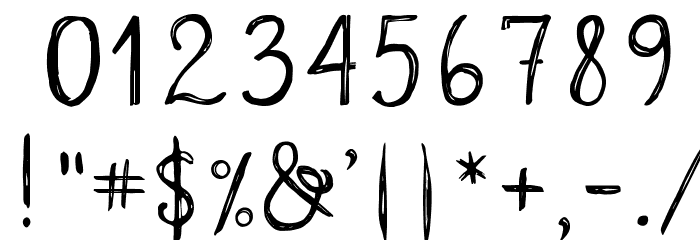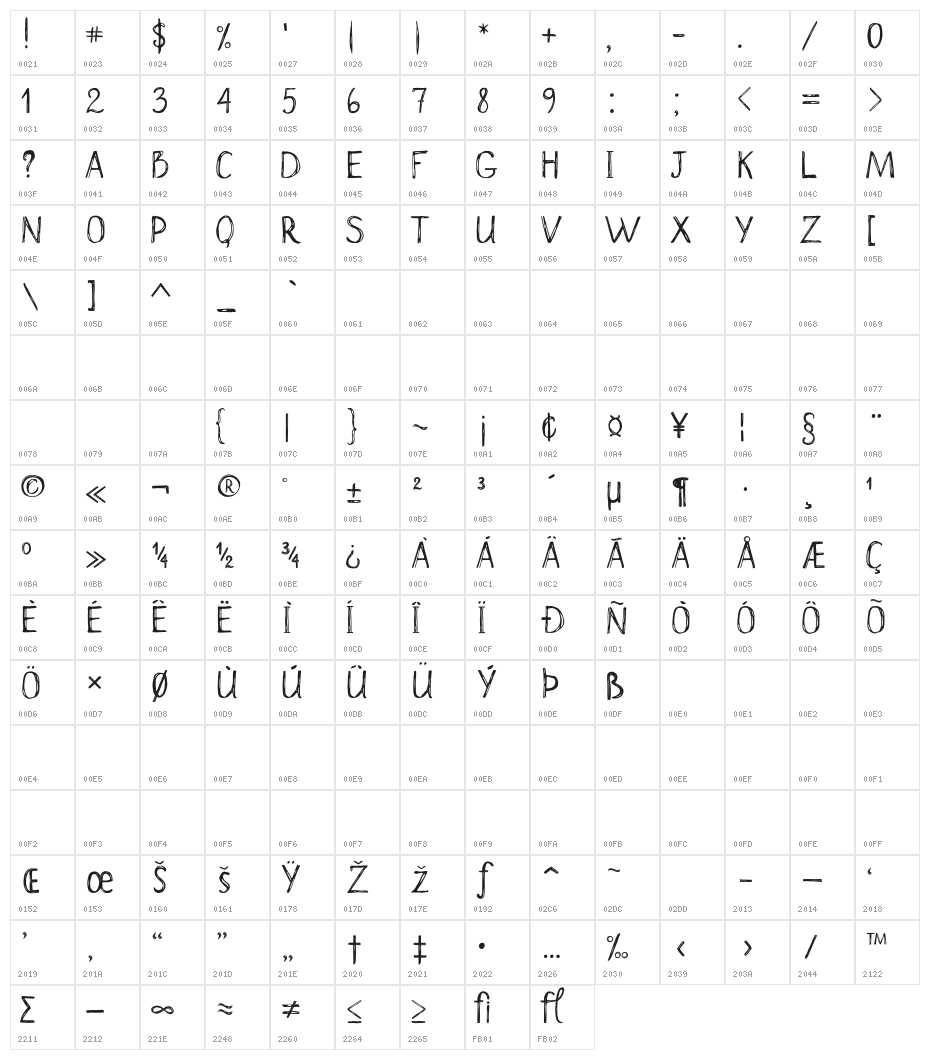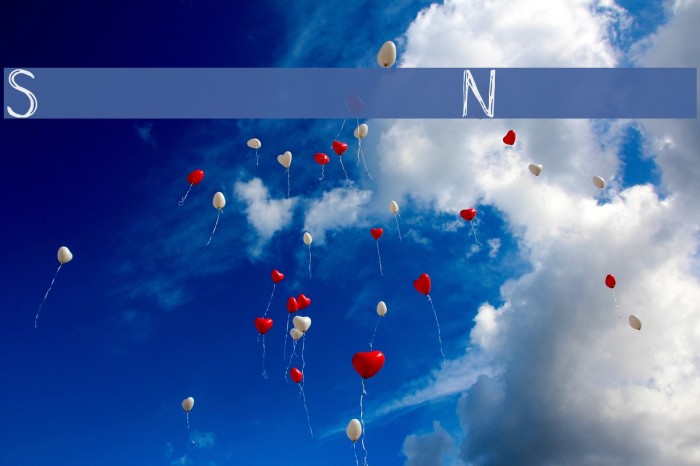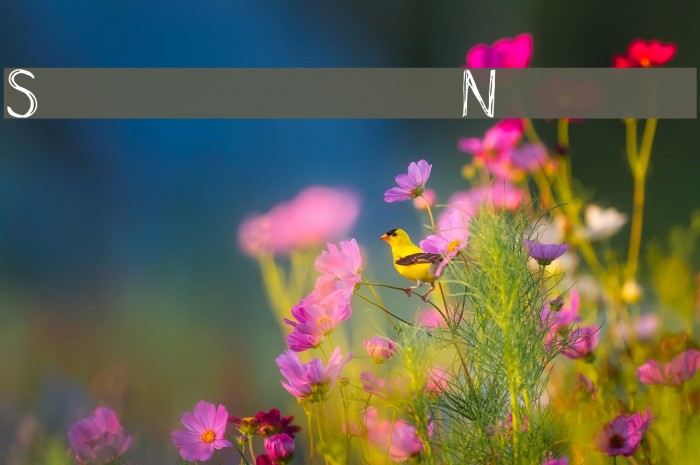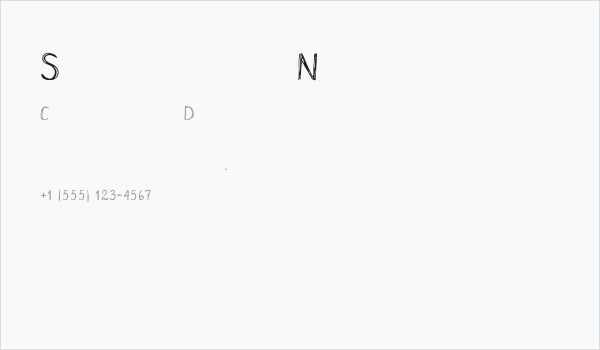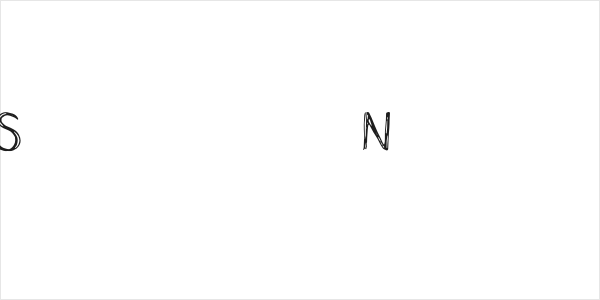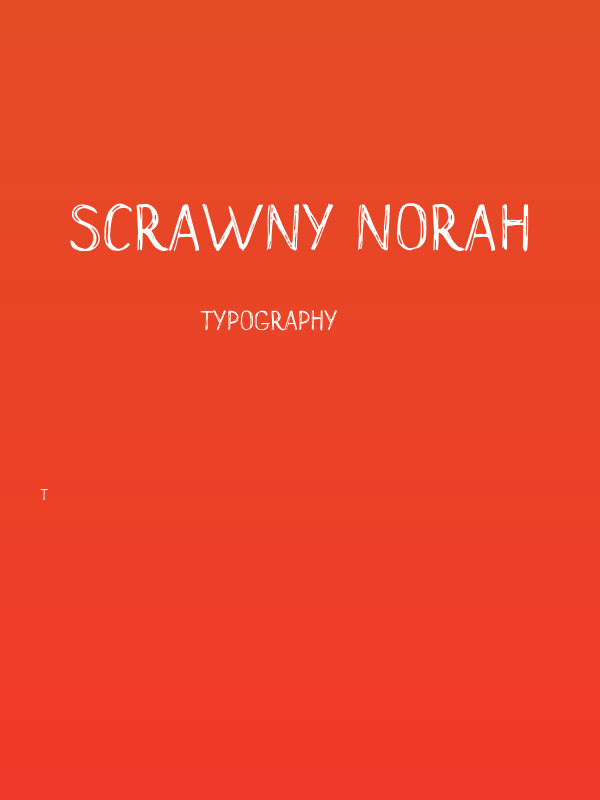
Scrawny Norah Font
This font features a playful and whimsical design with a hand-drawn aesthetic. The letters are uneven and slightly irregular, giving it a casual and informal feel. The strokes are varied in thickness, adding a dynamic and lively character to the text. The overall appearance is reminiscent of a doodle or sketch, making it ideal for creative and artistic projects. The font includes both uppercase and lowercase letters, numbers, and a variety of special characters, ensuring versatility in its application.
A playful, hand-drawn font with irregular strokes and a whimsical style.
• Proposed Projects: Ideal for children's books, creative posters, artistic branding, and casual invitations.
• Overall Style: Decorative
• Use Case: Headlines, Logos, Creative projects